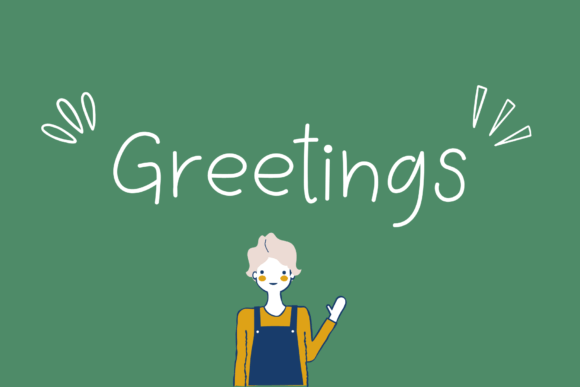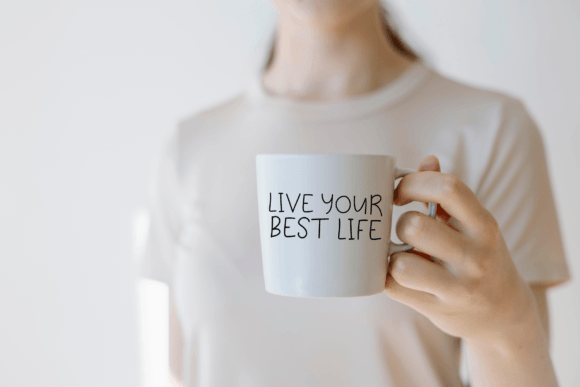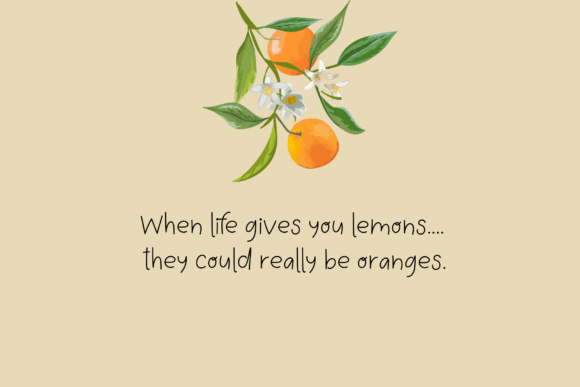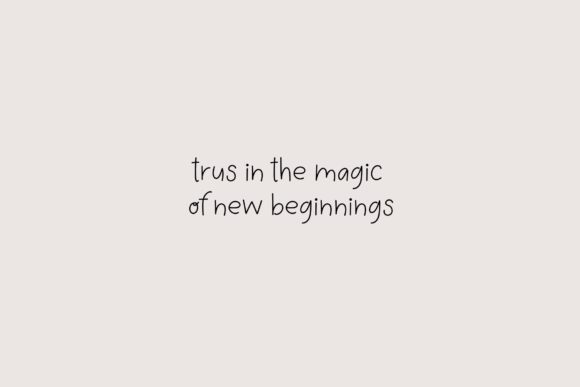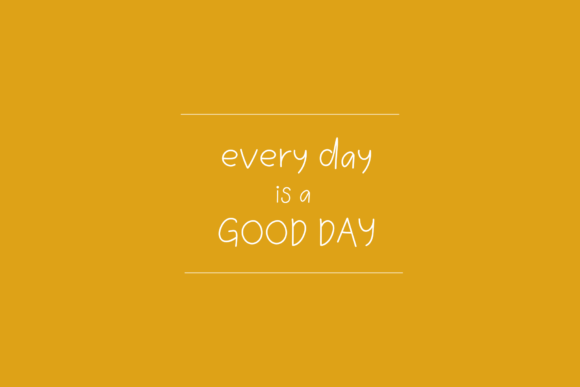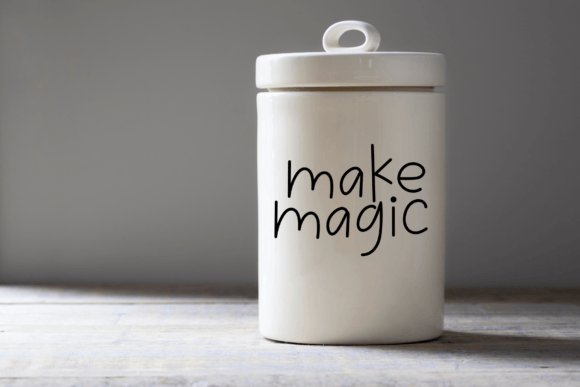
What Is Greetings Font?
Greetings is an adorable handwritten font designed to bring charm and playfulness to your creative projects. Its rounded letters and friendly style create a sense of warmth that feels inviting and joyful. Because of its delightful character, this font is a perfect choice for anyone who wants their designs to look cute and approachable.
You will see how easily Greetings adds a sweet, fun touch to any layout.
Greetings is a versatile font that works beautifully in many settings. For example, it’s perfect for greeting cards. Whether you’re designing birthday wishes, thank you notes, or holiday cards, this font makes every message feel more personal.
Additionally, you can use it for invitations. From baby showers to kids’ parties, Greetings adds a cheerful flair that sets the right tone for any celebration.
It’s also great for branding. If your brand needs a lighthearted and friendly identity, this font will help you create logos, packaging, and labels that look welcoming.
When you design social media graphics, Greetings ensures your posts stand out with a charming, upbeat style that draws attention.
Moreover, it works well for merchandise, stickers, website headers, and much more. Even simple layouts look fun and lively with this font.
Why Should You Choose Greetings Font?
There are many reasons to add Greetings to your font library. First, it’s highly legible, even with its playful curves. Whether you use it in large titles or smaller text, every letter stays clear and easy to read.
Also, it pairs nicely with clean sans-serif or serif fonts. This makes it simple to build cohesive layouts that look professional yet friendly.
Designers love that it looks polished immediately, saving time while delivering delightful results.
Greetings Font adds a sense of happiness and friendliness to any project. For example, when you want your designs to feel warm and playful, this font makes it effortless.
Even minimalist layouts feel more vibrant with Greetings’ unique character. Whether you’re creating social media posts, invitations, or product packaging, your work will feel instantly more approachable.
Greetings Font is more than just a typeface—it’s a creative asset that helps you communicate with joy and style. From greeting cards and branding to social media and invitations, this font adapts easily and adds a friendly touch to every design.